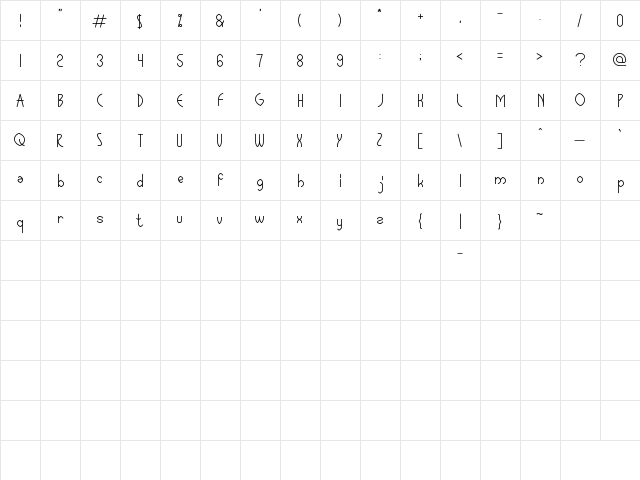
GLOBAL CAPITALISM Regular
Design Context for GLOBAL CAPITALISM Typeface
GLOBAL CAPITALISM takes a measured approach to typography — its balanced proportions and neutral character make it a reliable workhorse for both digital and print work.